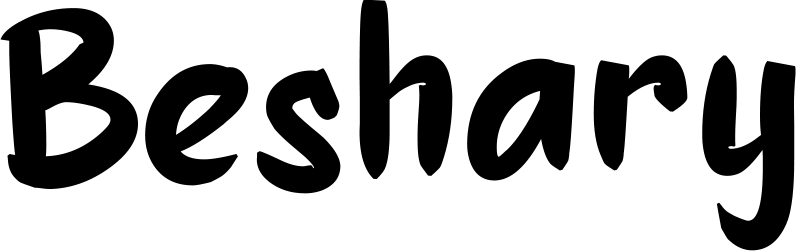
B Beshary Font
B Beshary font, with its brush and paint styles, can give your design an extraordinary and eye-catching beauty. With its friendly design, this cartoon font can help you design flyers, posters, and many children’s invitat…
B Beshary font, with its brush and paint styles, can give your design an extraordinary and eye-catching beauty. With its friendly design, this cartoon font can help you design flyers, posters, and many children’s invitation cards, especially for children.
You will be amazed by customers’ responses if you add energetic texts with watercolor backgrounds and attract more customers to your design.